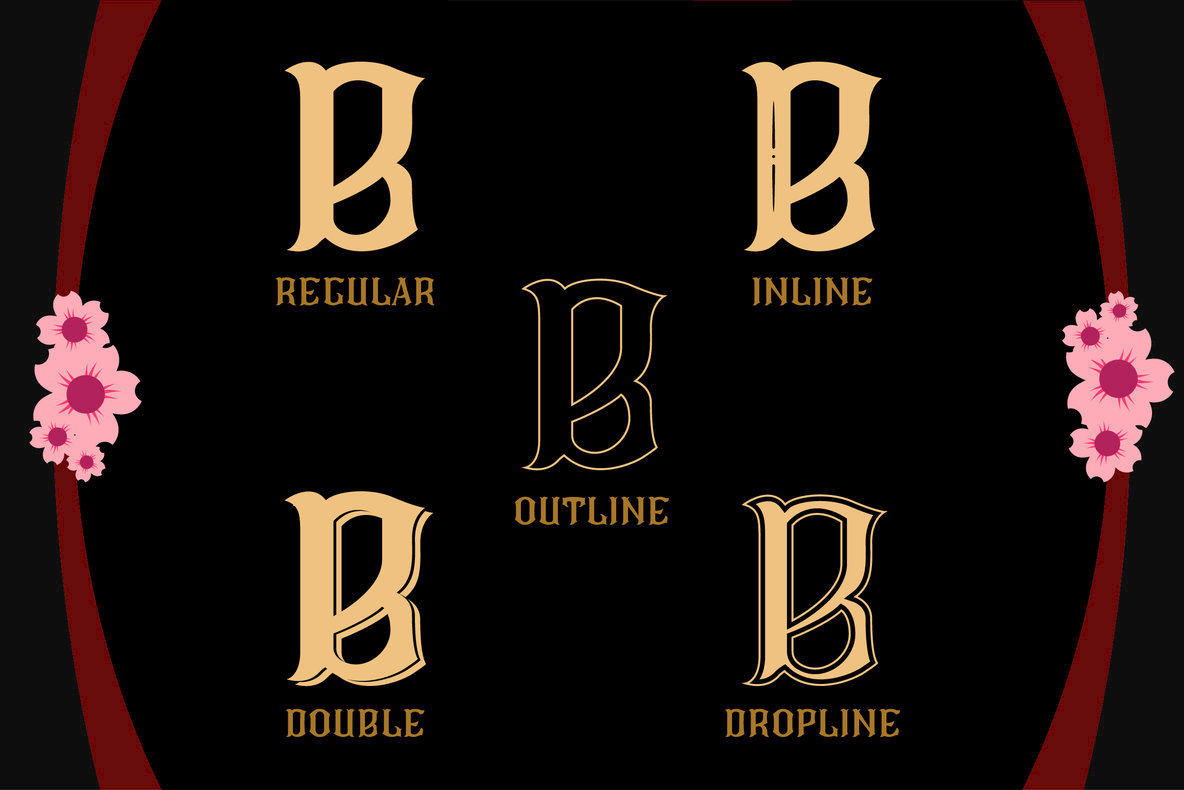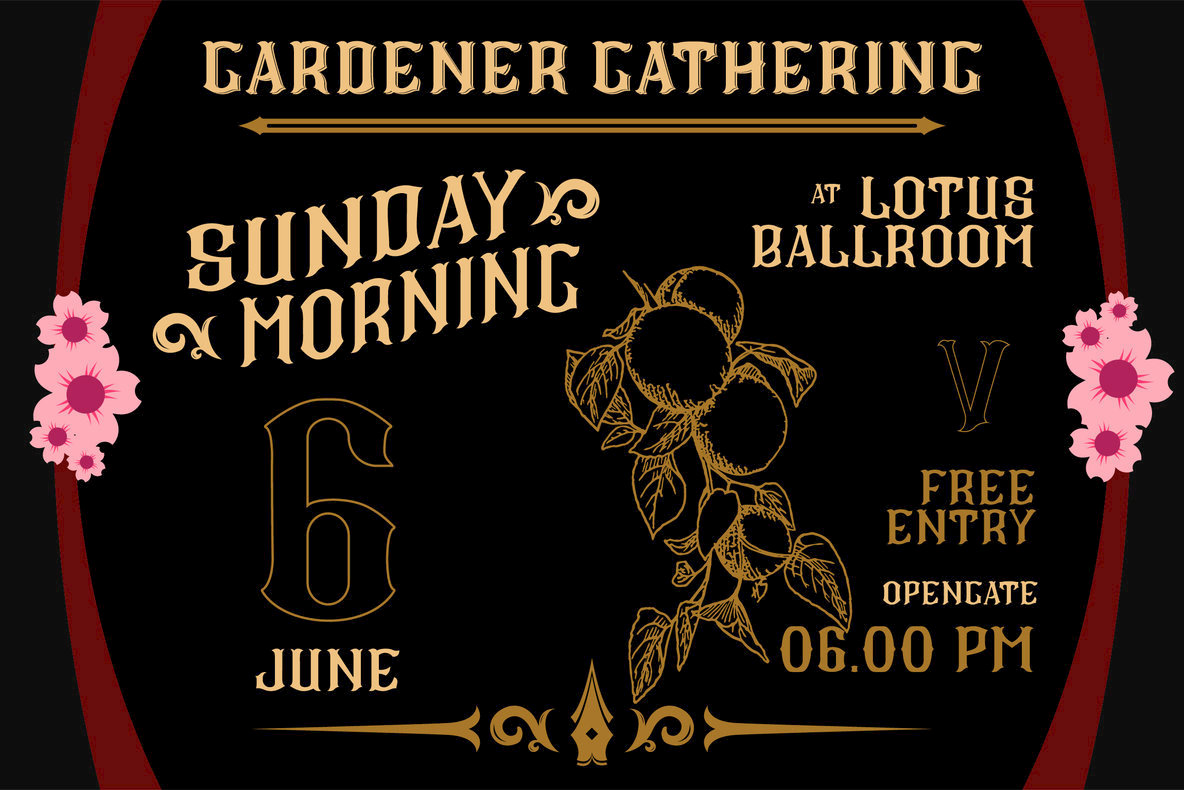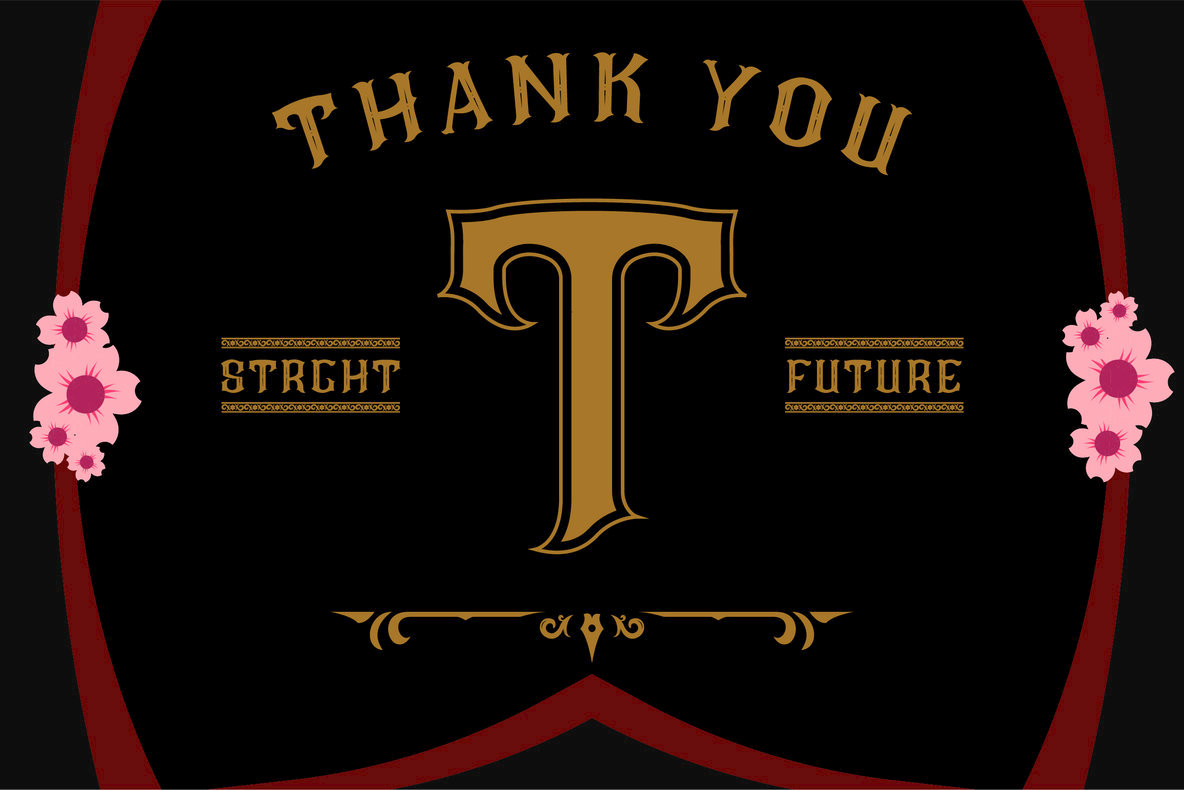
CS Roger Font
Introducing CS Roger includes 5 Style Fonts. It can be used to create almost all types of design projects like Greeting Cards, Wedding design, and many more. Just use your imagination and your project will become more alive and vivid than ever with one of the CS Roger Font Family.
CS Roger also suitable for package design, or even a brand identity, craft design, any DIY project, book title, wedding font, pop vintage design, retro design or any purpose to make your art / design project look pretty and trendy? Feel free to play with all the patterns and shape!